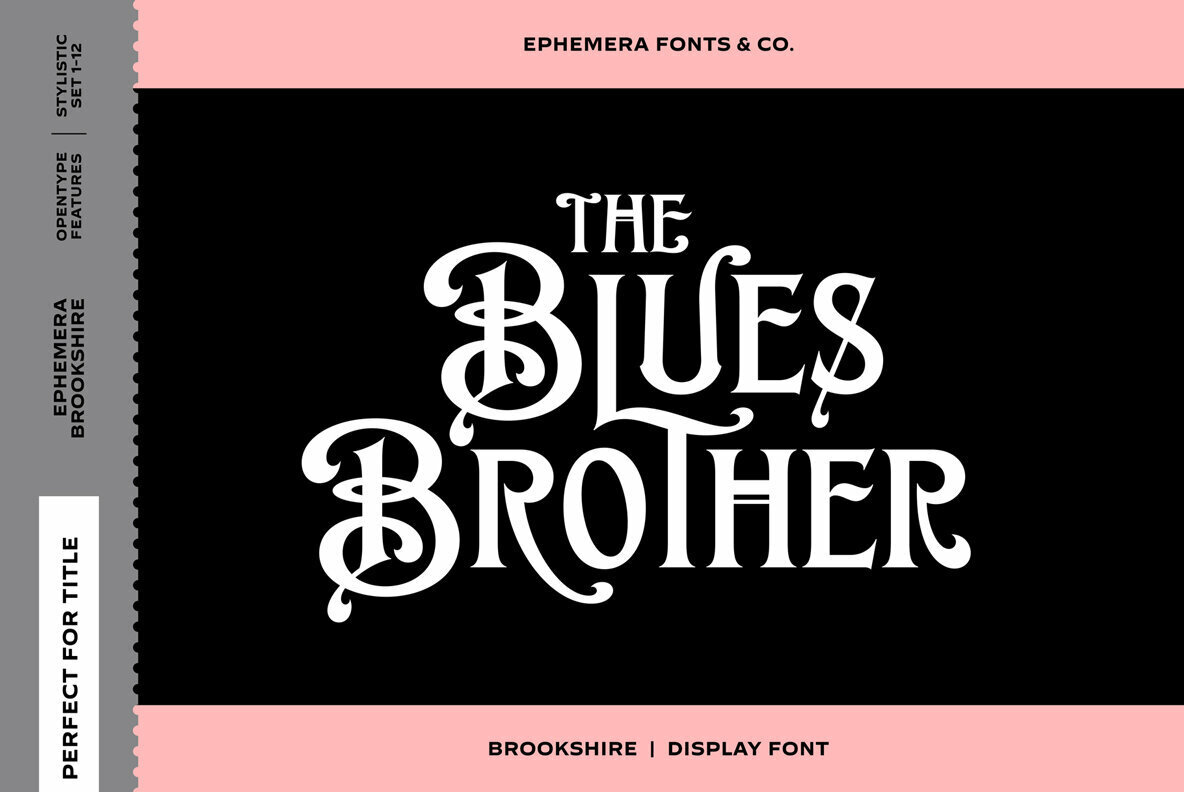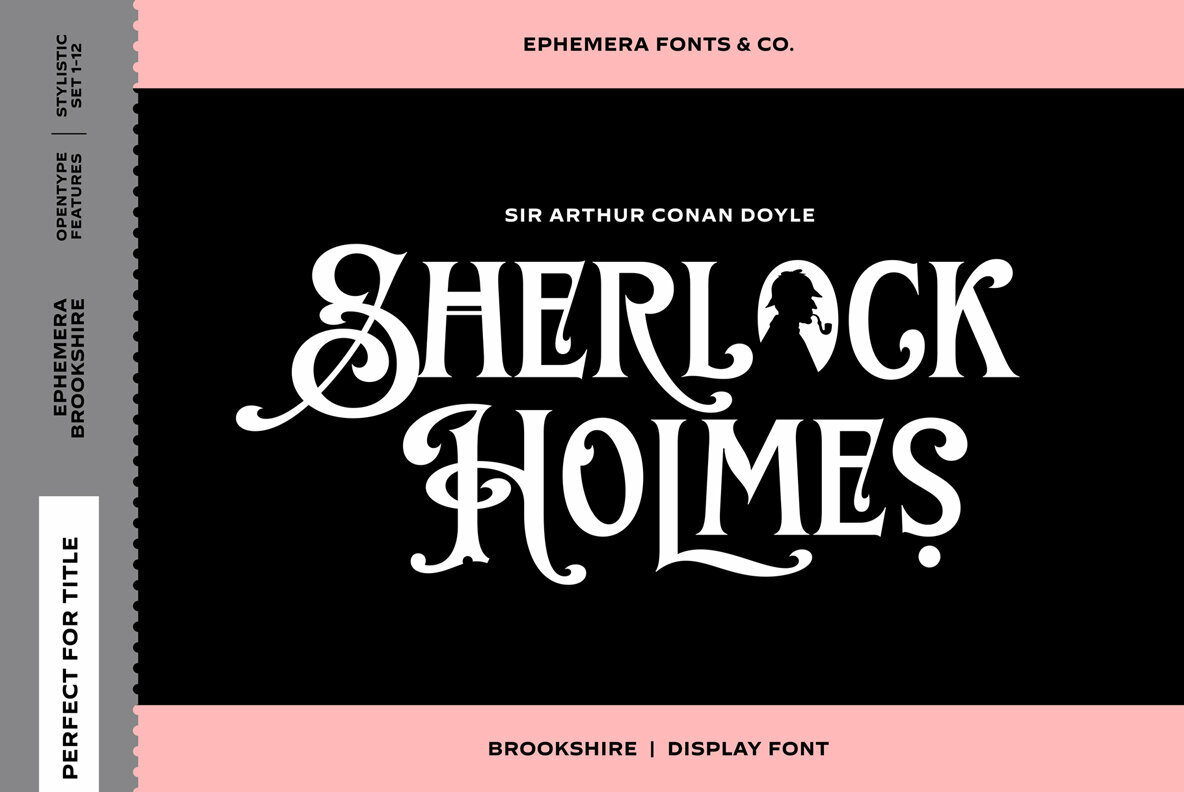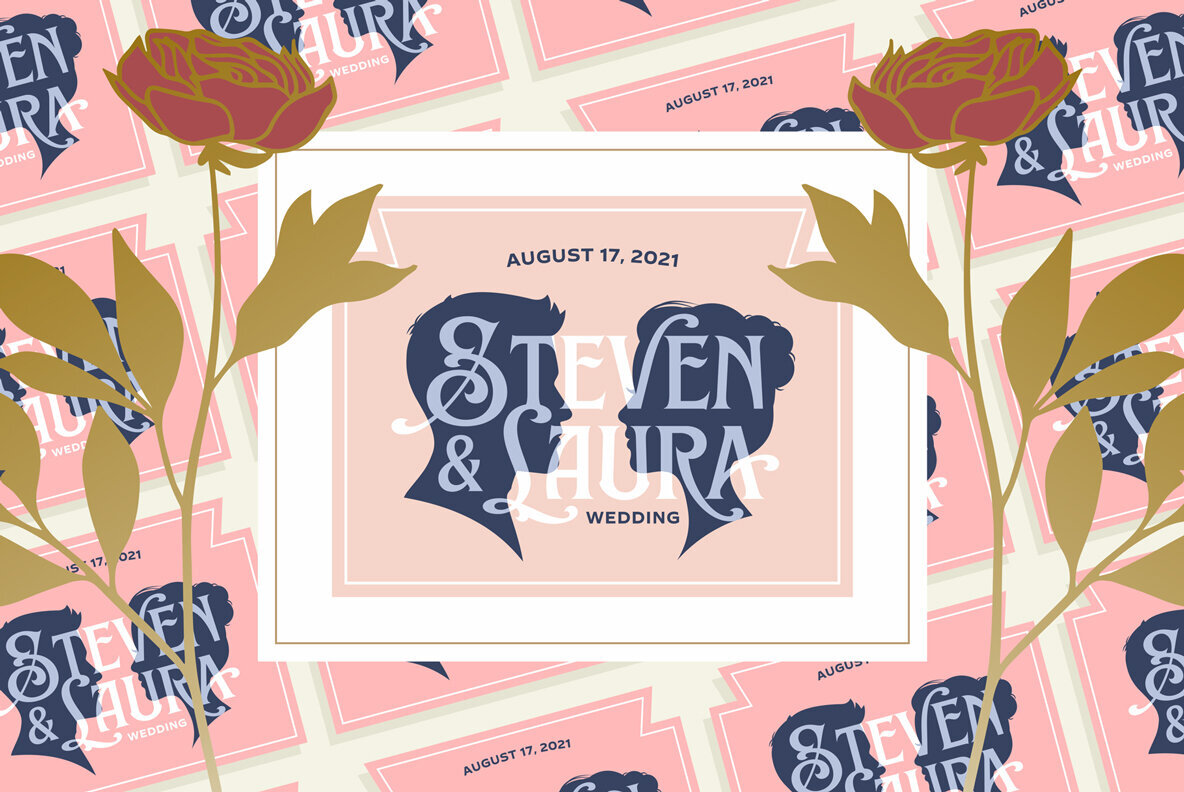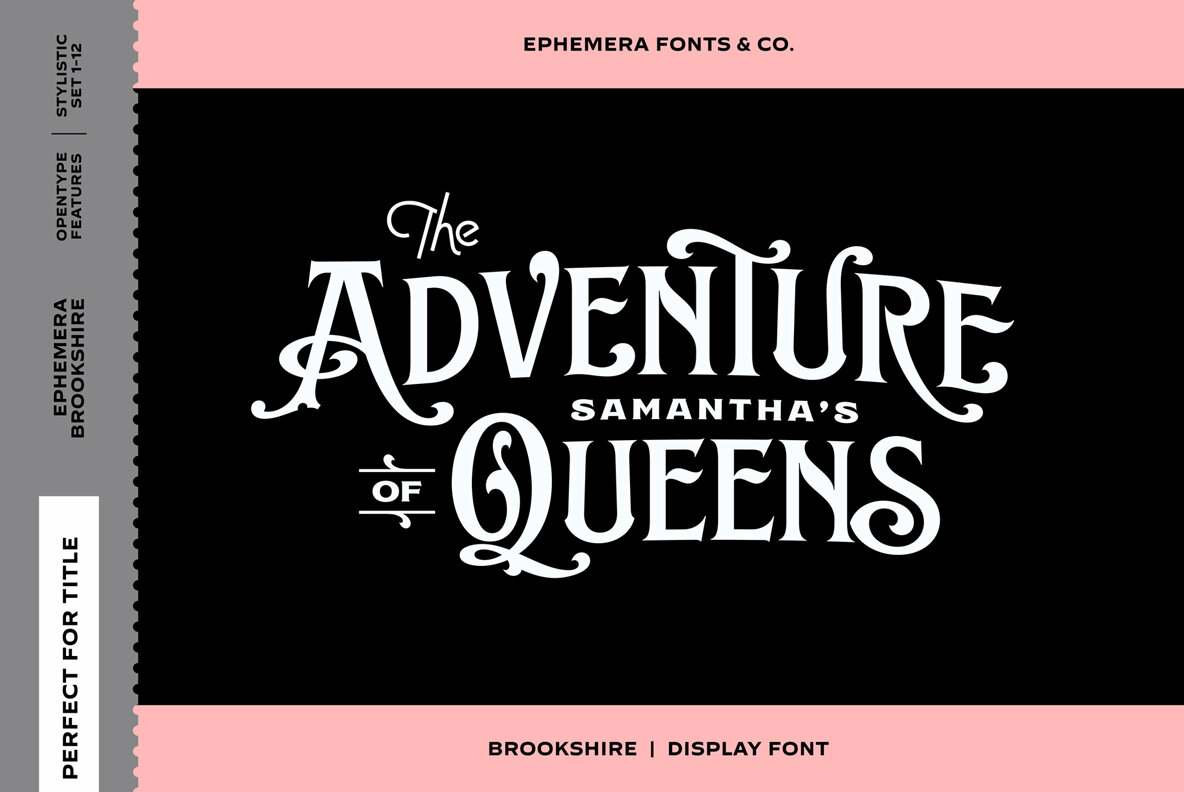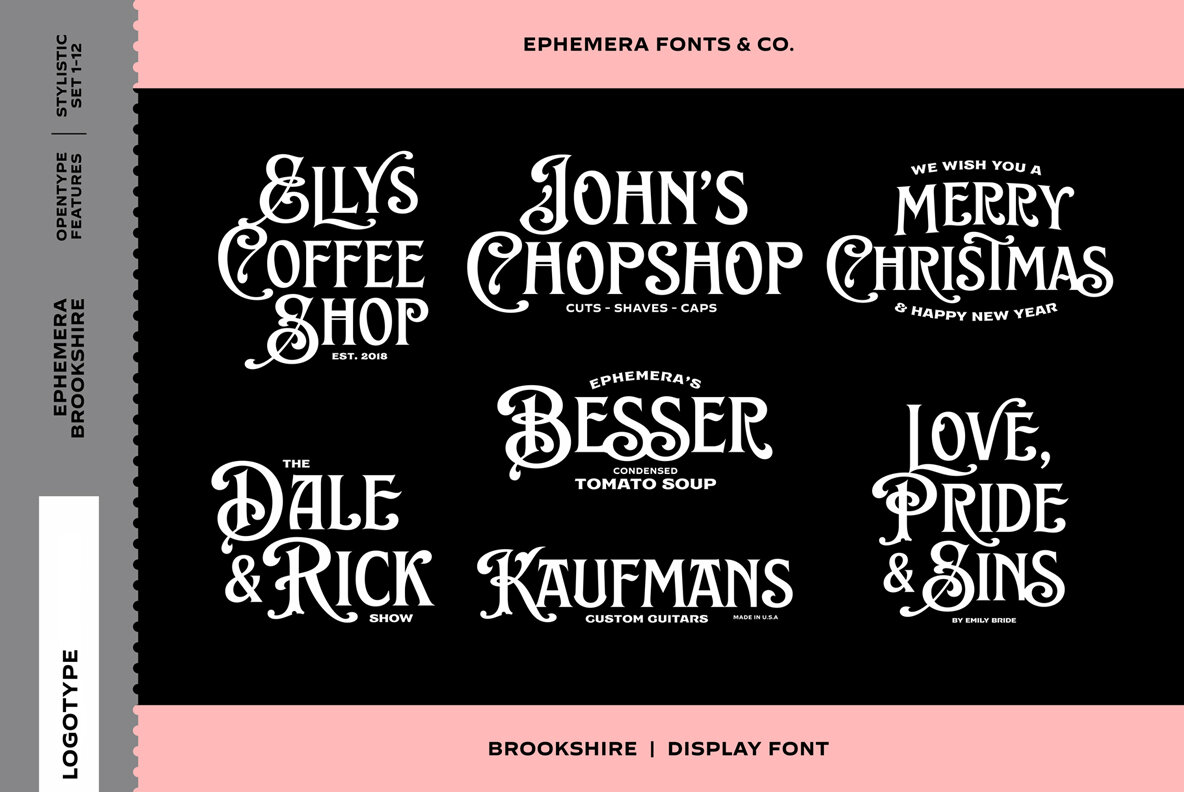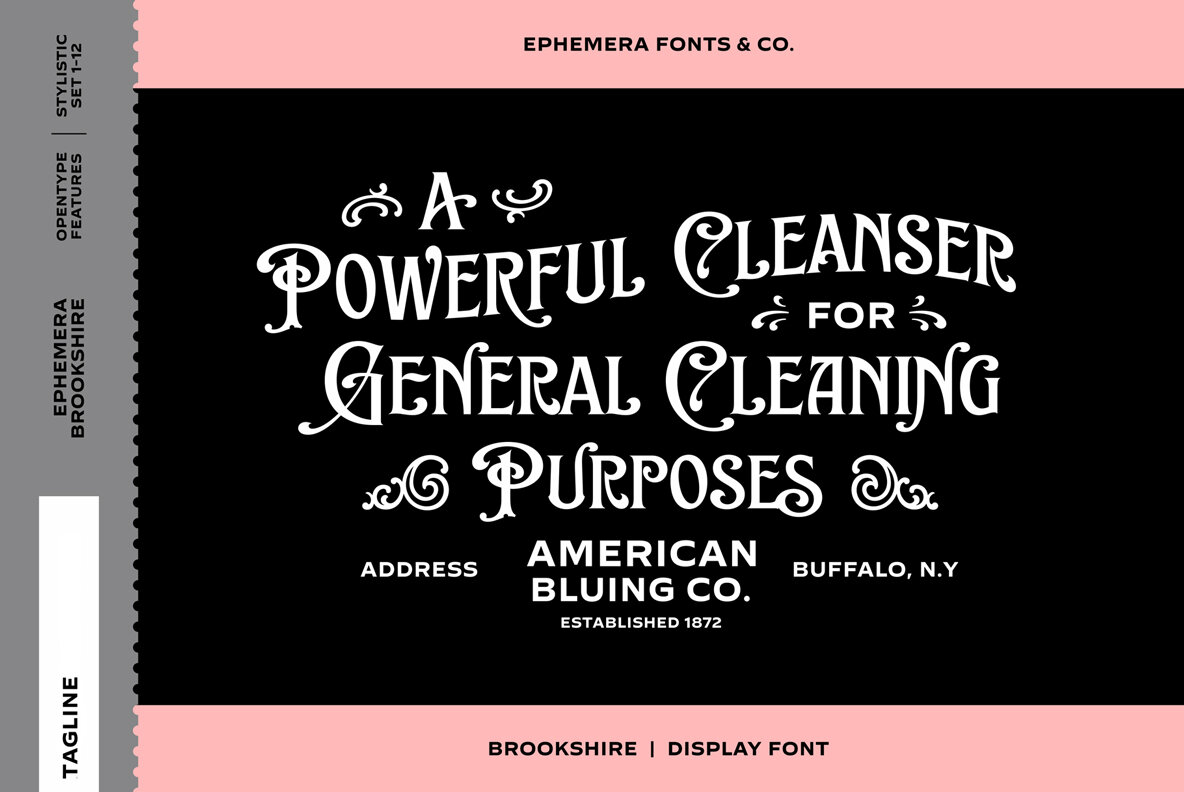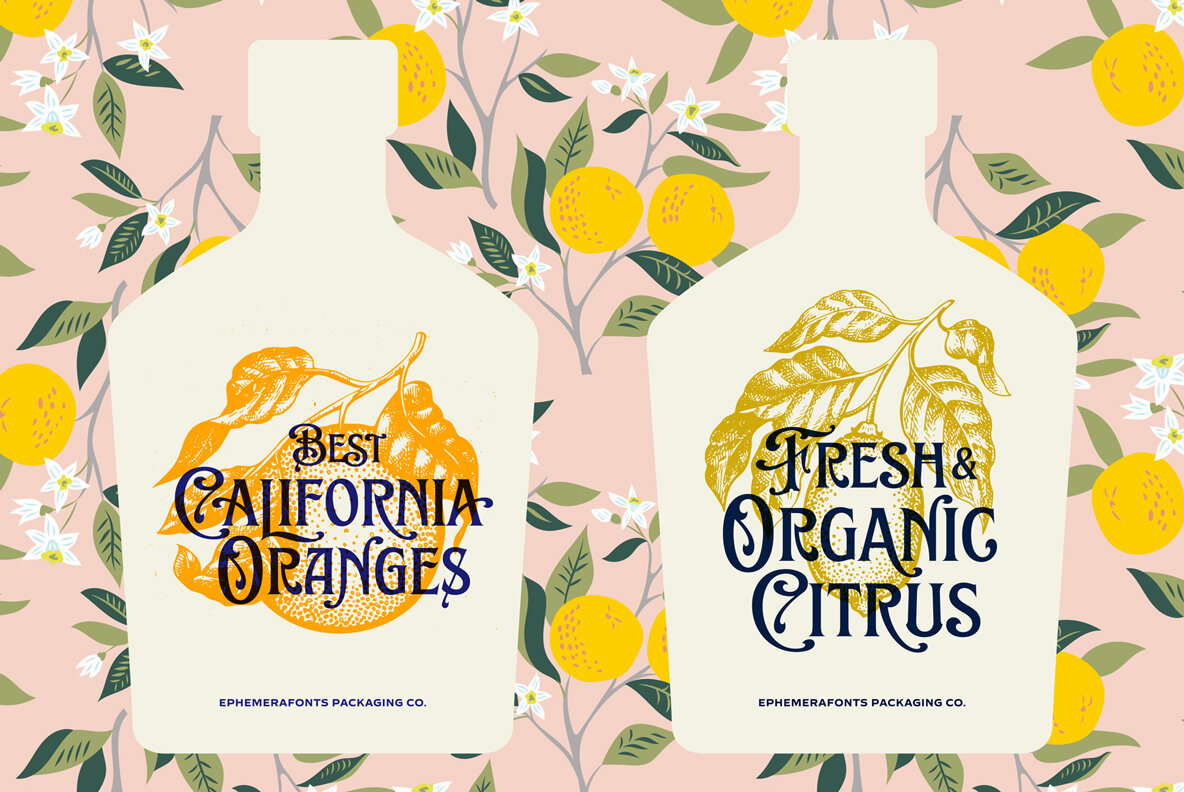
EFCO Brookshire Font
EFCO Brookshire Regular
EFCO Brookshire was inspired by the lettering seen on the Almanac ephemera paper when I visited the flea market in france. The result is a lovely piece of neo-Victorian fun that brings back the joy of 19th century shop-signs and flamboyant design ethos.
Brookshire is ideal for poster work and signage, or anywhere that you want to bring back the joy of high Victorian design ethos.